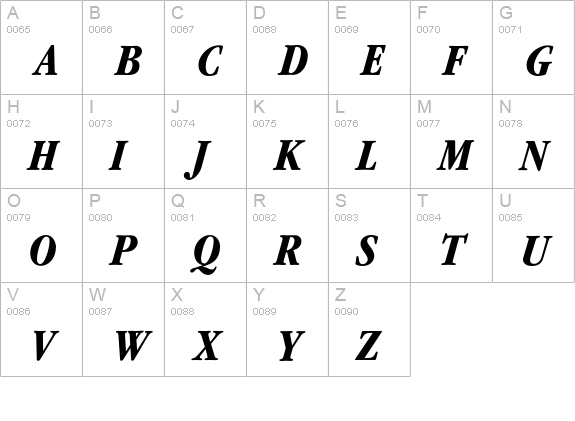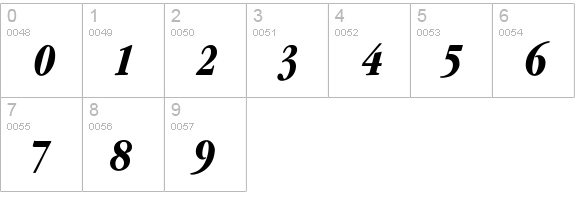
GaramondCondBoldItalic Font Details
GaramondCondBoldItalic font is a perfect combination of elegance and boldness, designed to add a touch of sophistication to any project. With its sleek and slanted italic design, this font exudes a sense of modernity and creativity. Featuring the timeless Garamond typeface, GaramondCondBoldItalic font beautifully showcases the intricate detailing and graceful curves that have made Garamond a favorite among designers for centuries. The bold weight adds a striking emphasis to your text, making it ideal for headlines, titles, and emphasis in both print and digital media. But what makes GaramondCondBoldItalic font truly exceptional is that it is free! That's right, you can freely download this exquisite font at FontsMarket.com. Whether you're a professional designer or a passionate typography enthusiast, having access to such a high-quality font without any cost is a true blessing. So why wait? Enhance your design projects with the elegance and boldness of GaramondCondBoldItalic font. Download it for free at FontsMarket.com and let your creativity soar to new heights.